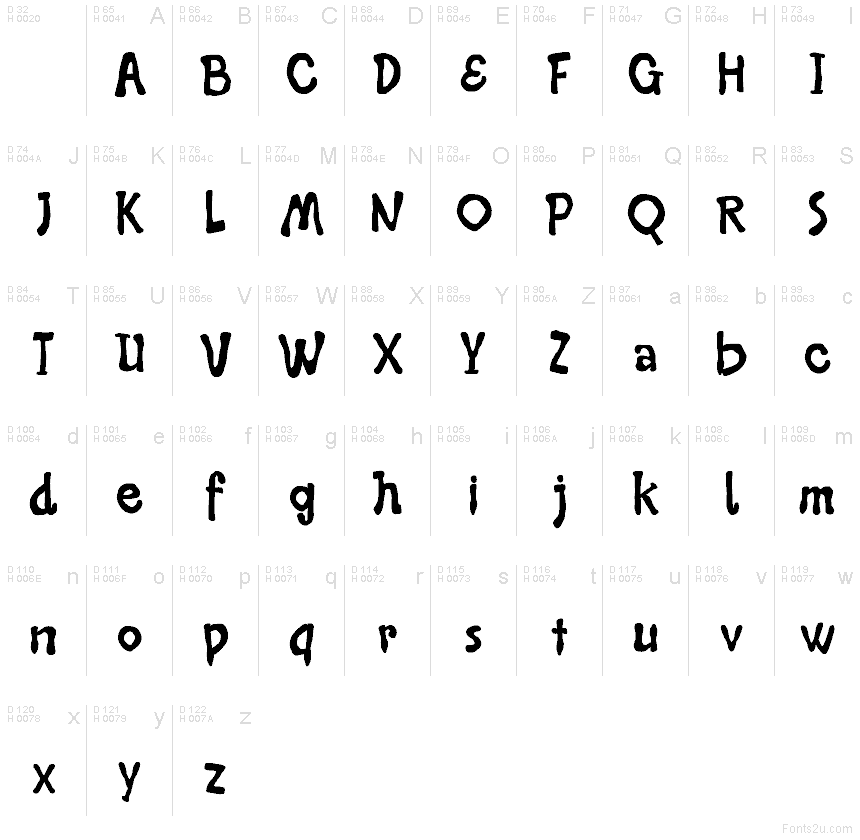
CS Warped Regular Demo
CS Warped font by Craft Supply Co. dares to go against the grain with its distinct look, distorted style, and irregular shapes guaranteed to catch attention. This casual display typeface gives your texts an unconventional design and a quirky aesthetic that surely reflect in how your readers perceive them.
Make modern branding attempts especially youthful ones using this free font, prepare unusual product packaging layouts or exquisite book covers. Other uses include posters, websites, apps, greeting cards, music band logos, and school projects.